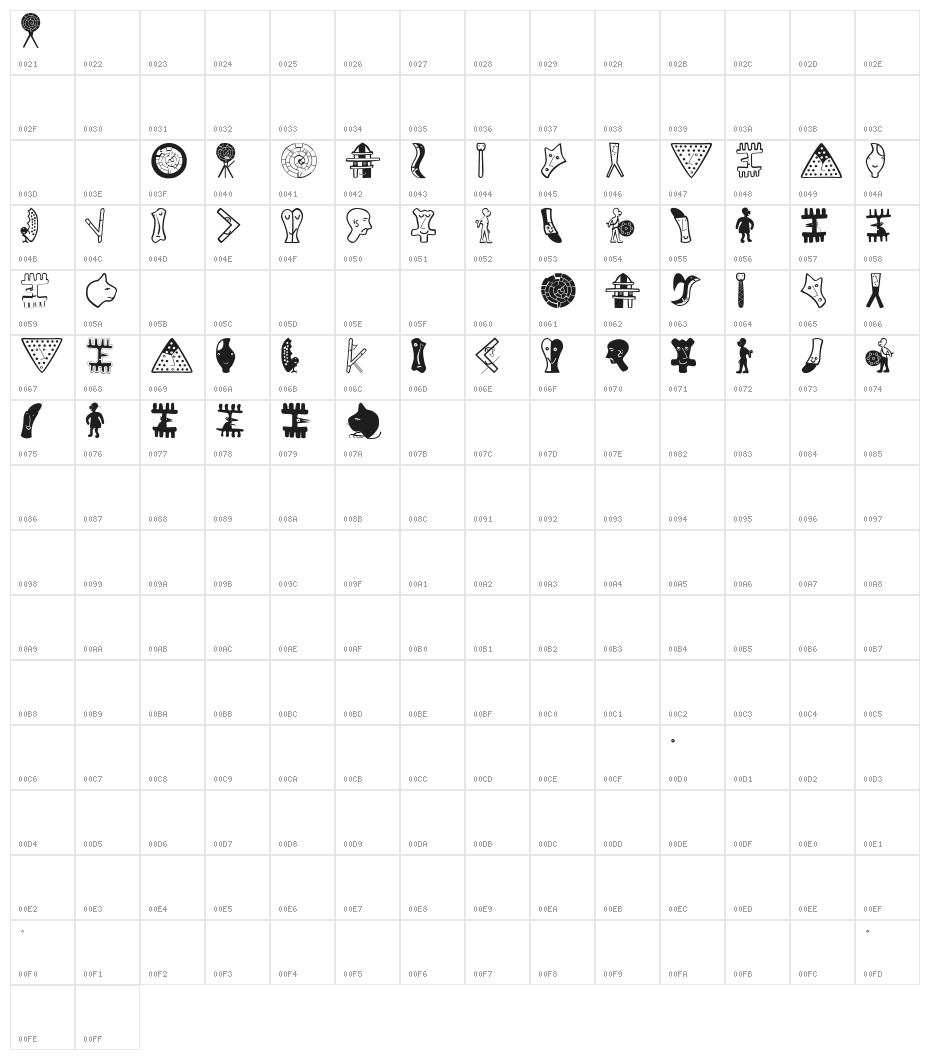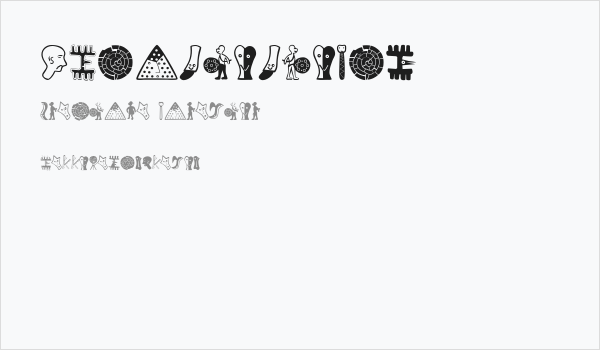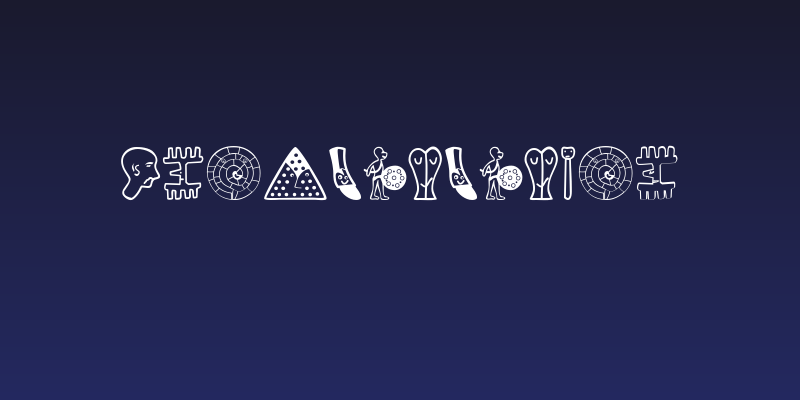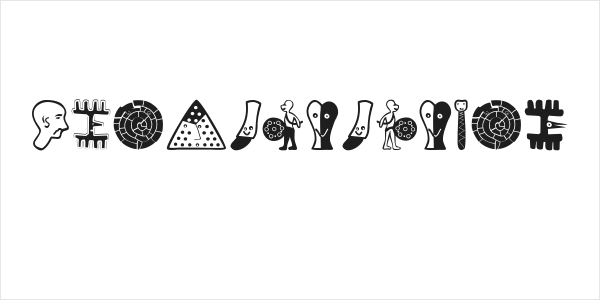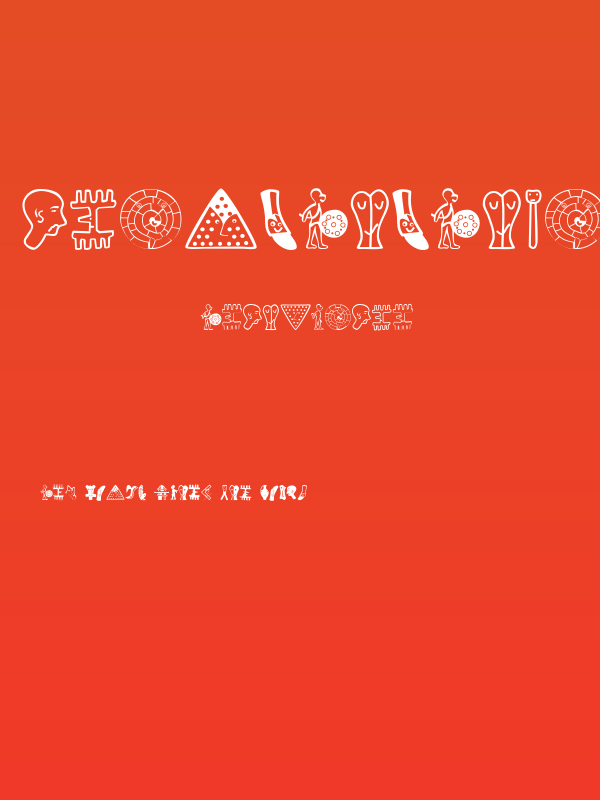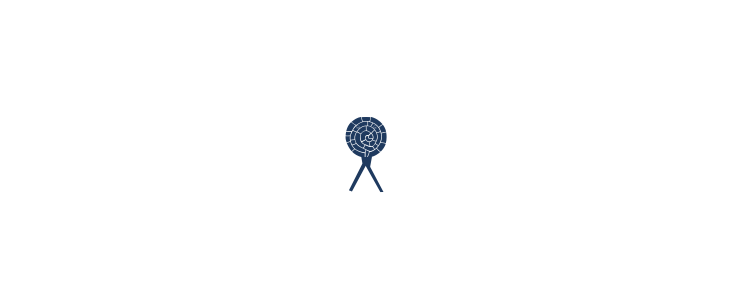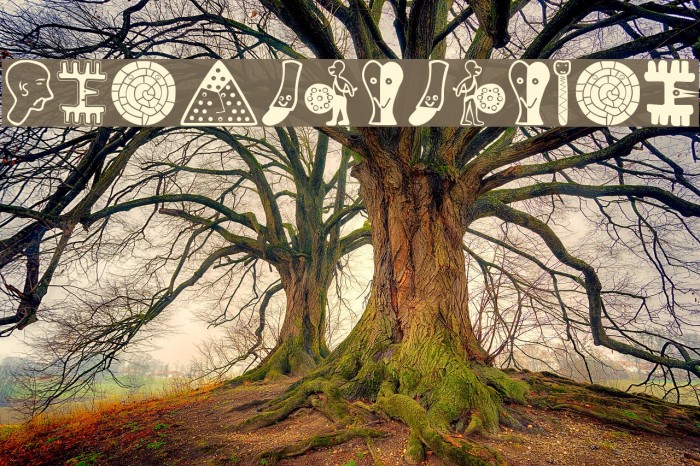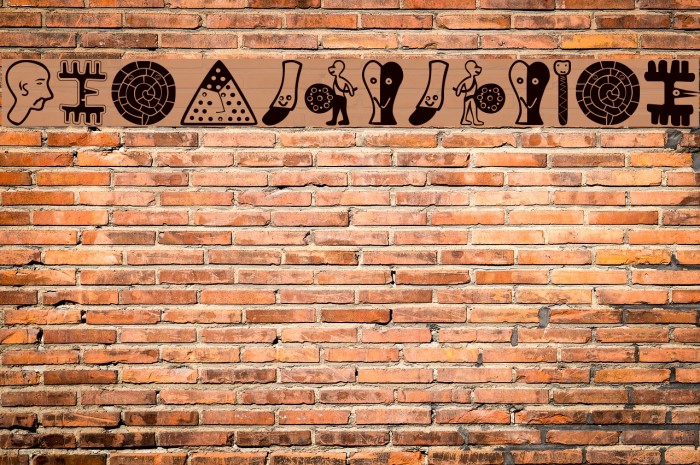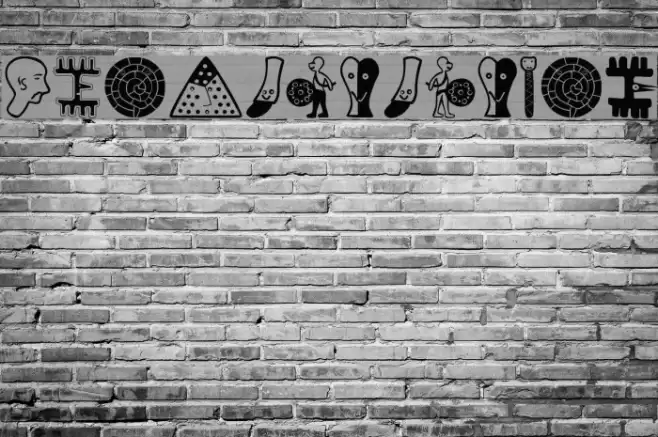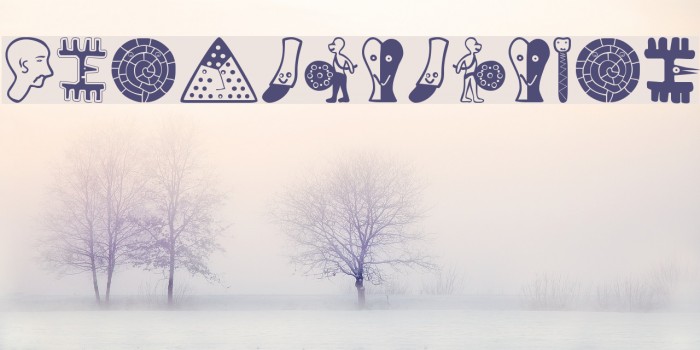
PhaistosToday Font
PhaistosToday Description
This design is inspired by ancient symbols, featuring a collection of intricate and abstract shapes that resemble historical glyphs. Each character is unique, with a mix of geometric and organic forms, creating a sense of mystery and antiquity. The symbols are bold and visually striking, with a high contrast between the solid black shapes and the white background. The overall style is decorative and thematic, evoking a sense of ancient civilizations and archaeological discoveries. The characters are tightly spaced, enhancing the compact and dense appearance of the design.
| Use Case | Logos, Posters, Themed Events |
| Proposed Projects | Ideal for projects that require a historical or archaeological theme, such as museum exhibits, educational materials, or themed event posters. |